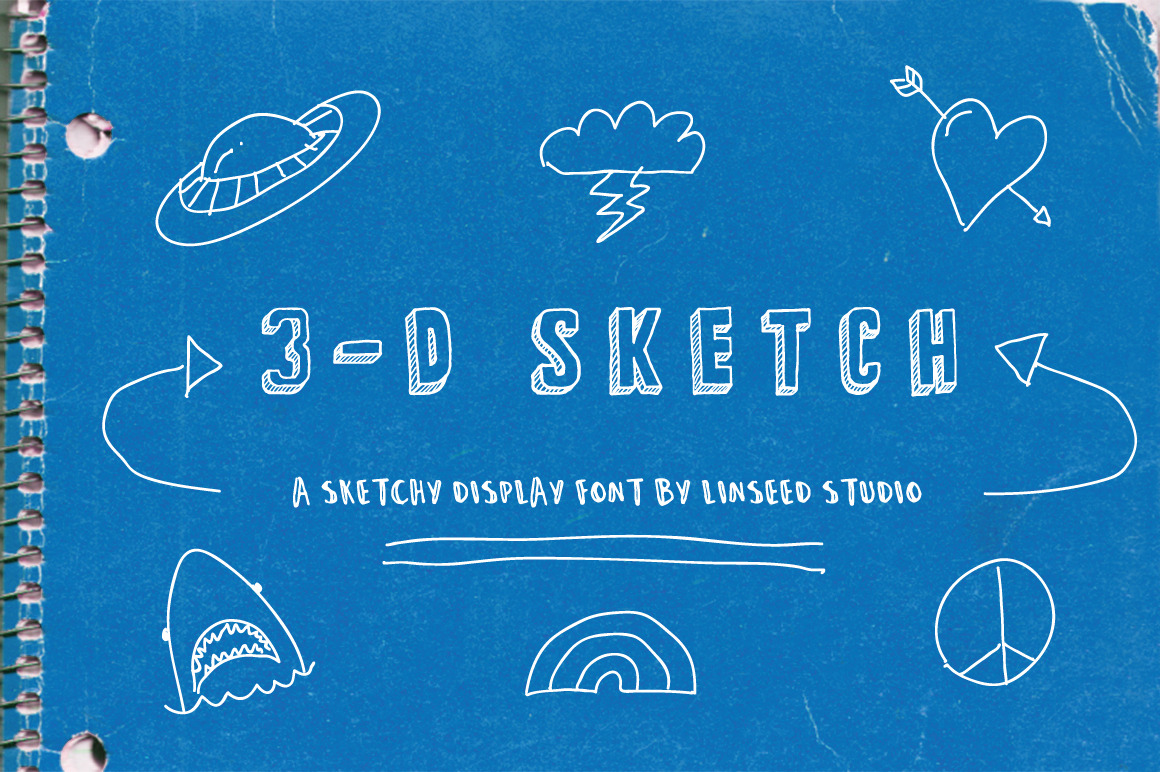
3-D Sketch Display Font
3-D Sketch is a hand-drawn display font in OTF and WOFF formats that can be used in both personal and commercial projects. No attribution is required, although it is always appreciated :)